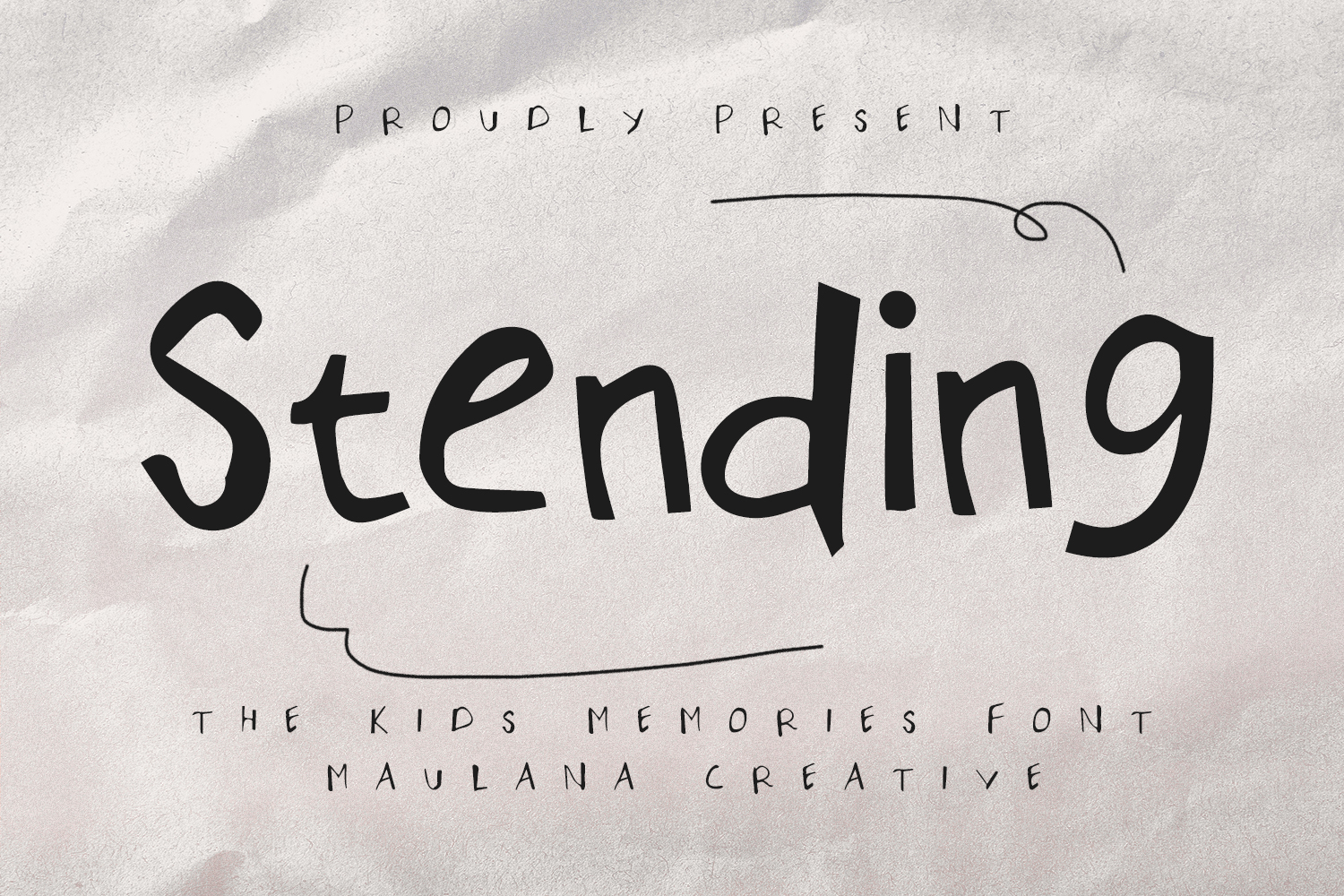
Stending is a kids memory handmade handwritten font. With bold stroke, fun character with a bit of ligature. To give you an extra creative work. Stending font support multilingual more than 100+ language. This font is good for logo design, Social media, Movie Titles, Books Titles, a short text even a long text letter and good for your secondary text font with sans or serif. Make a stunning work with Stending font.